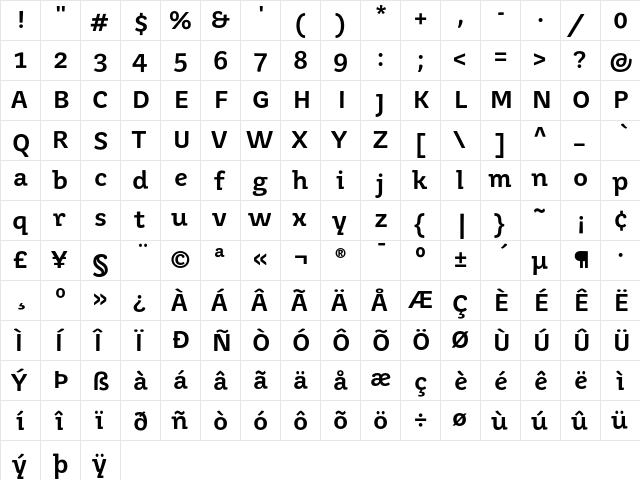
Juvenis Book Book Bold
Design Context for Juvenis Book Typeface
Juvenis Book takes a measured approach to typography — its balanced proportions and neutral character make it a reliable workhorse for both digital and print work. Its bold stroke weight gives it real presence on the page.